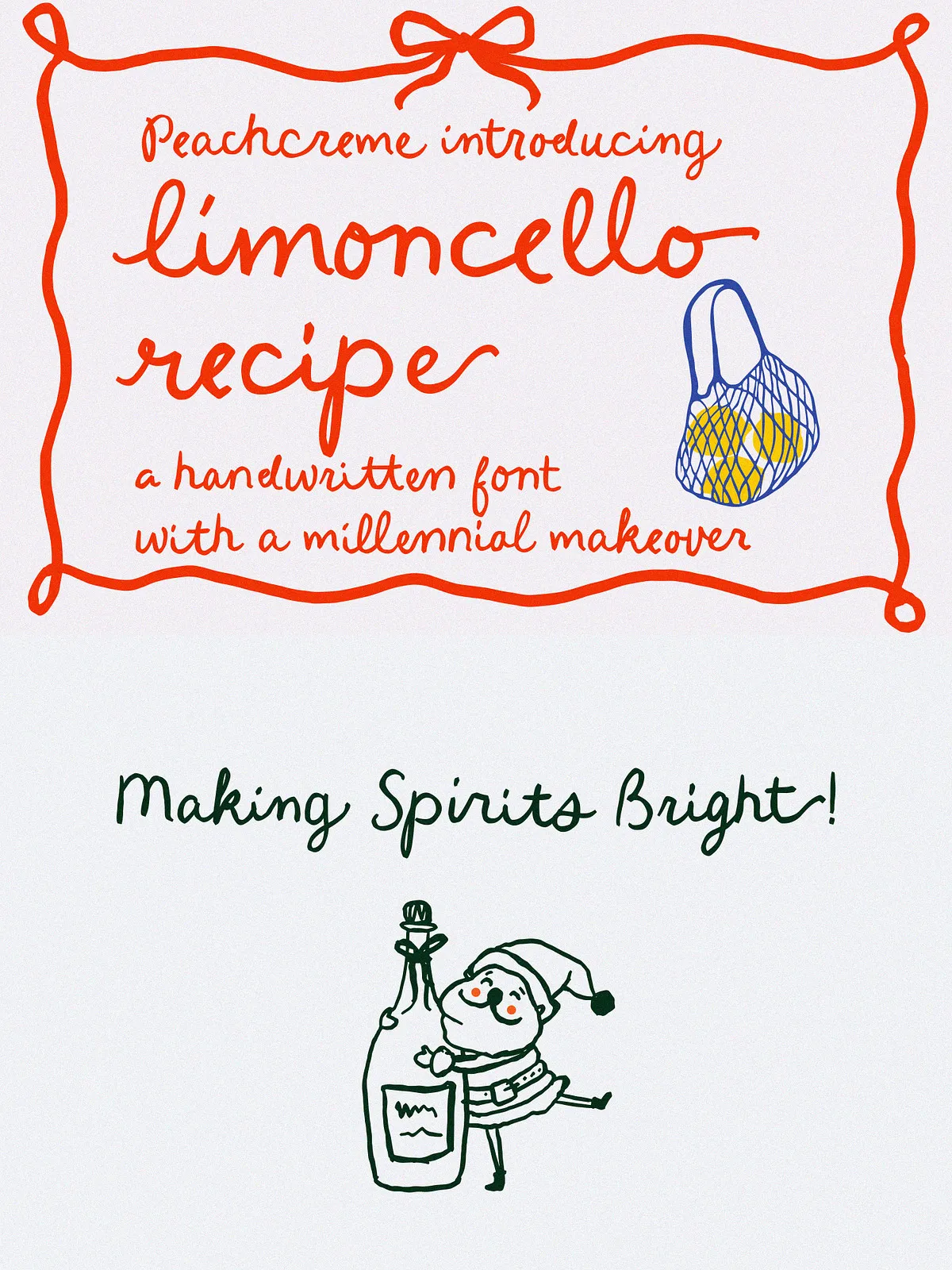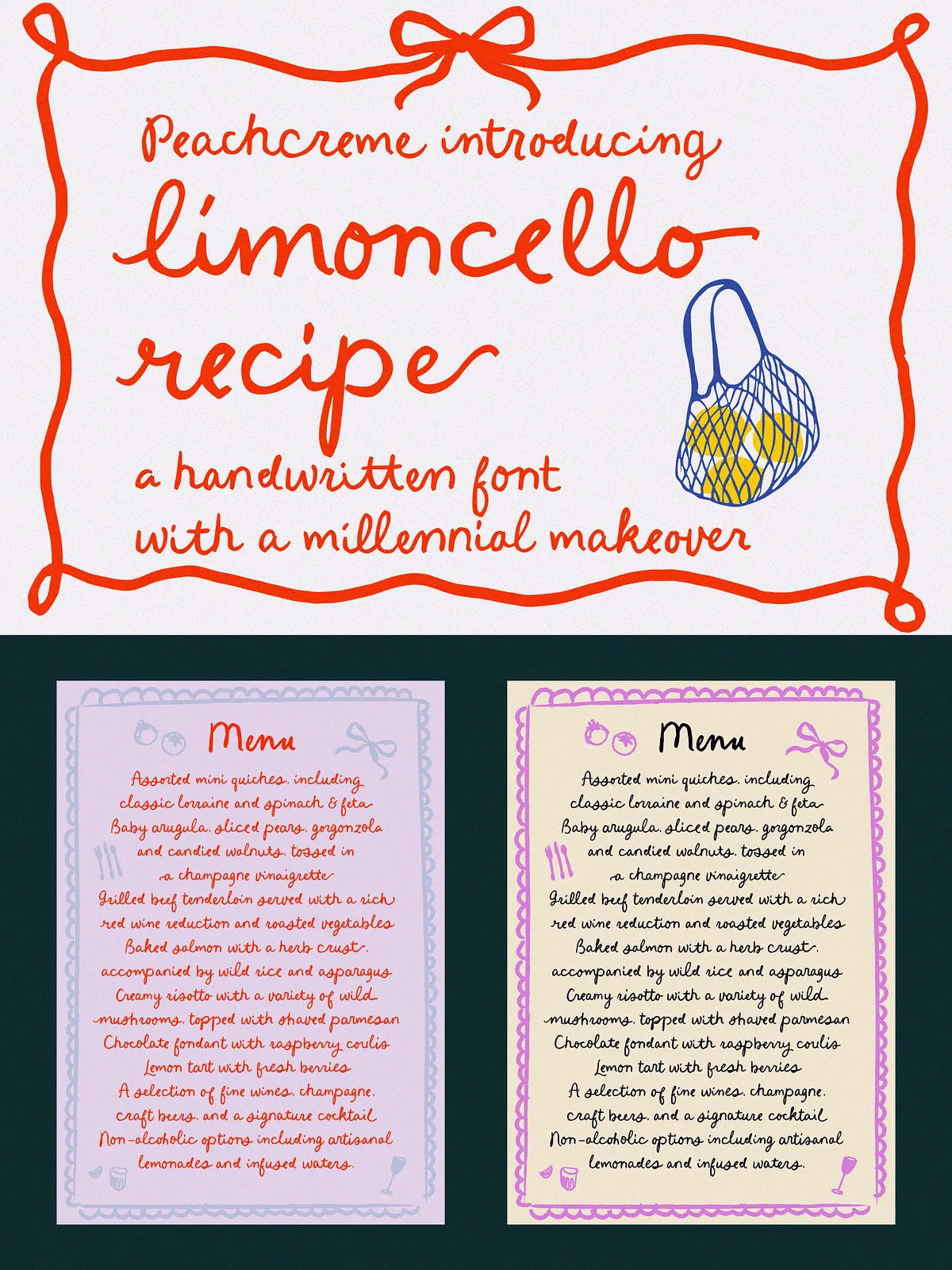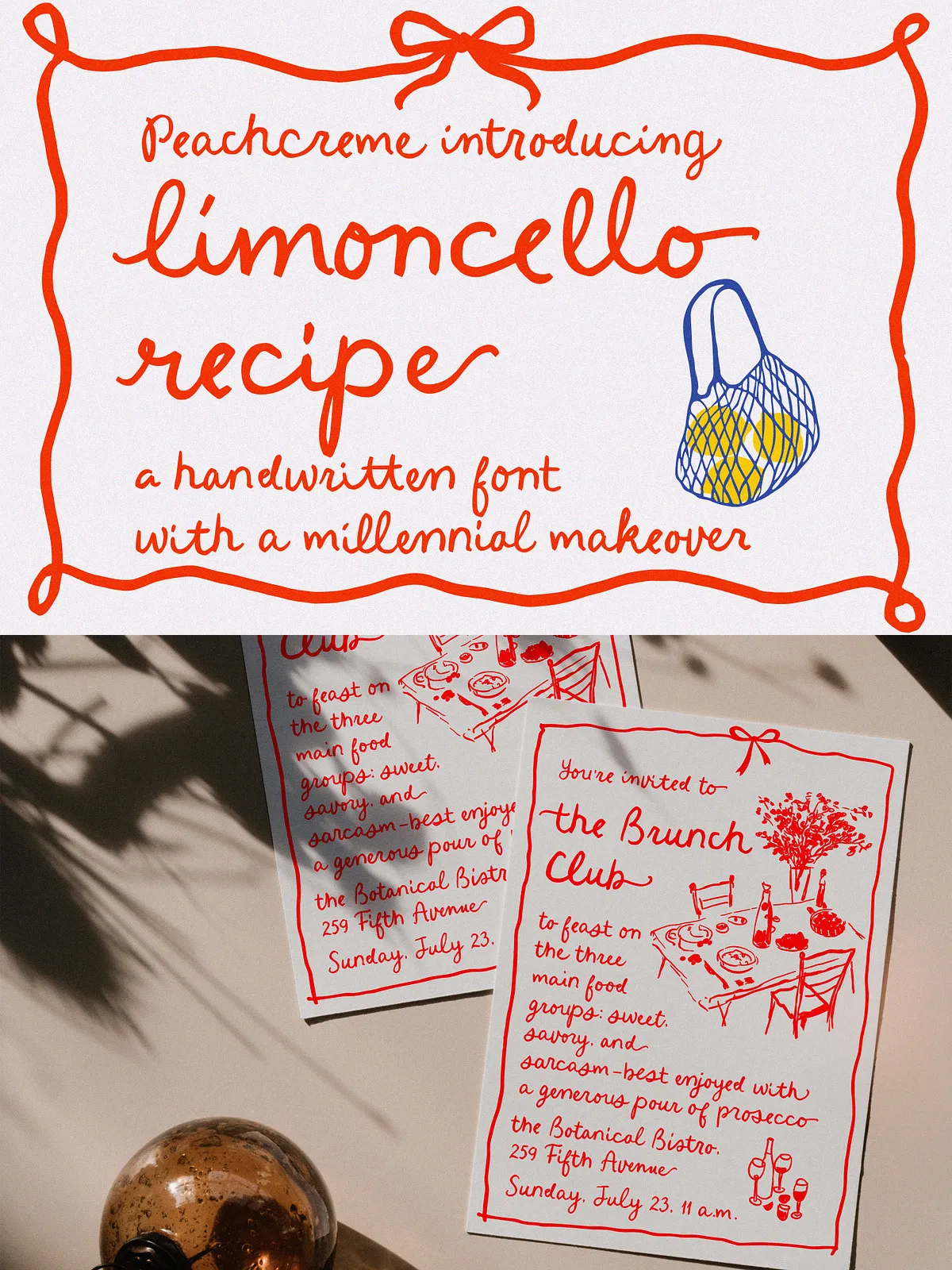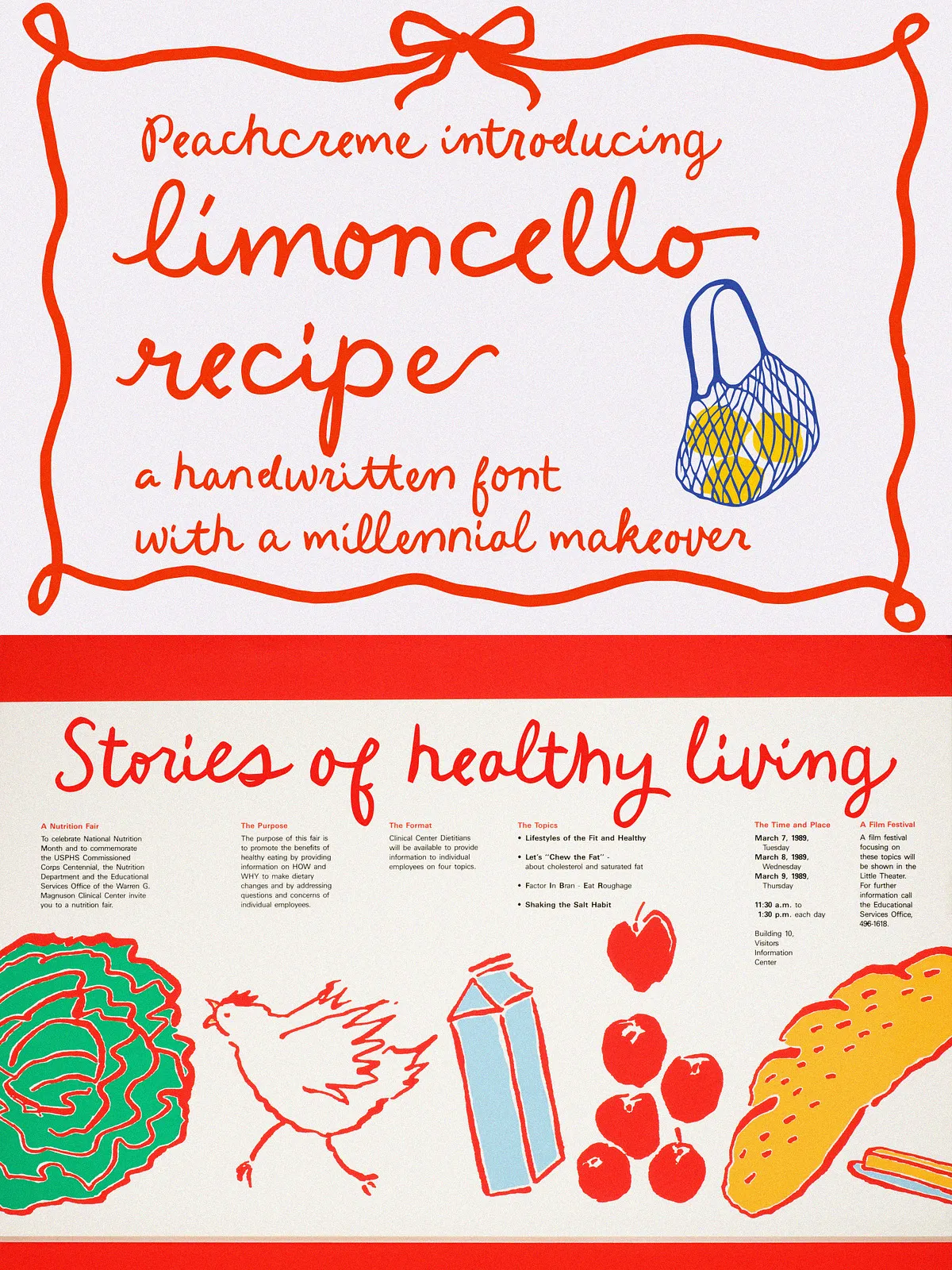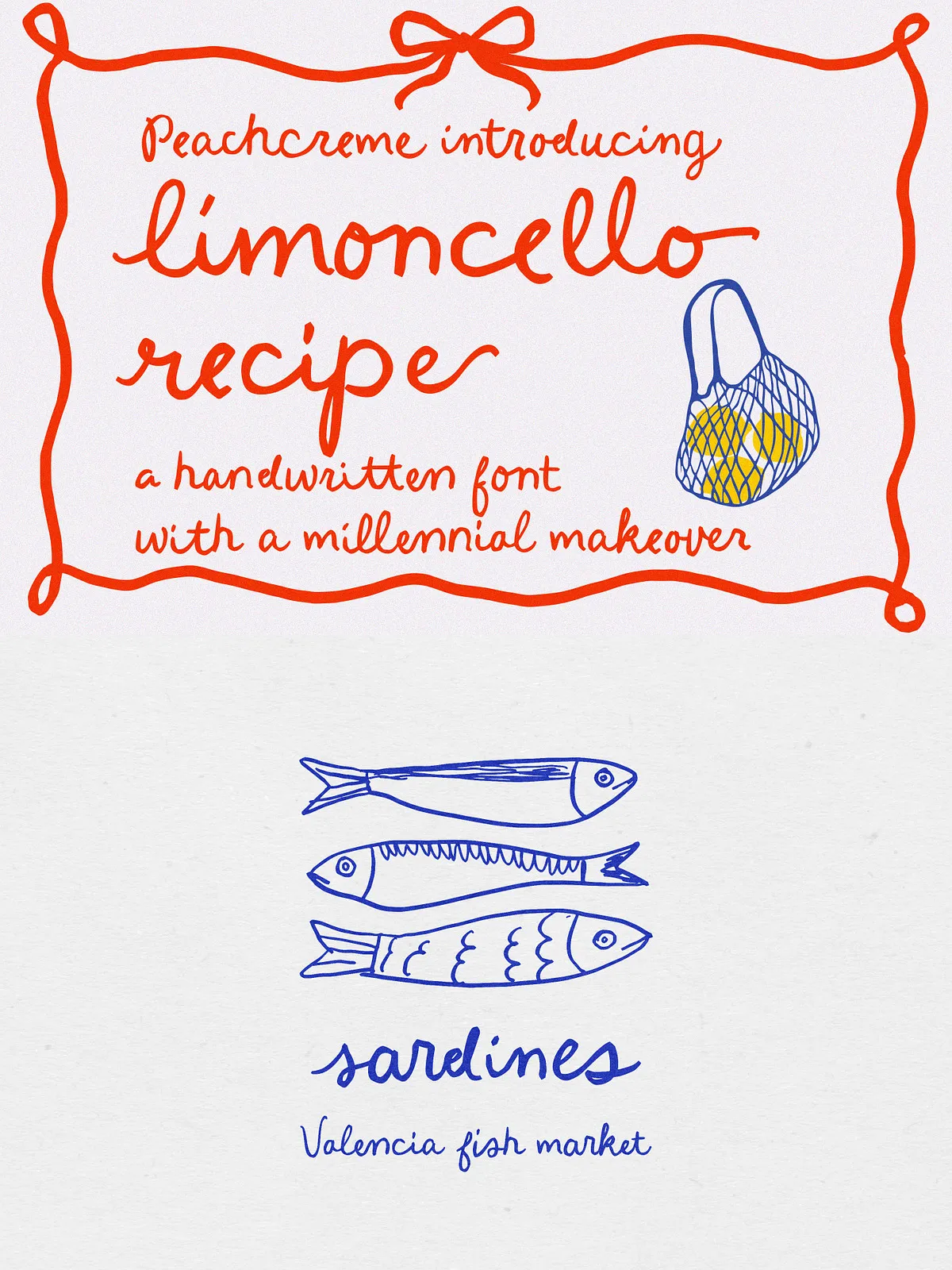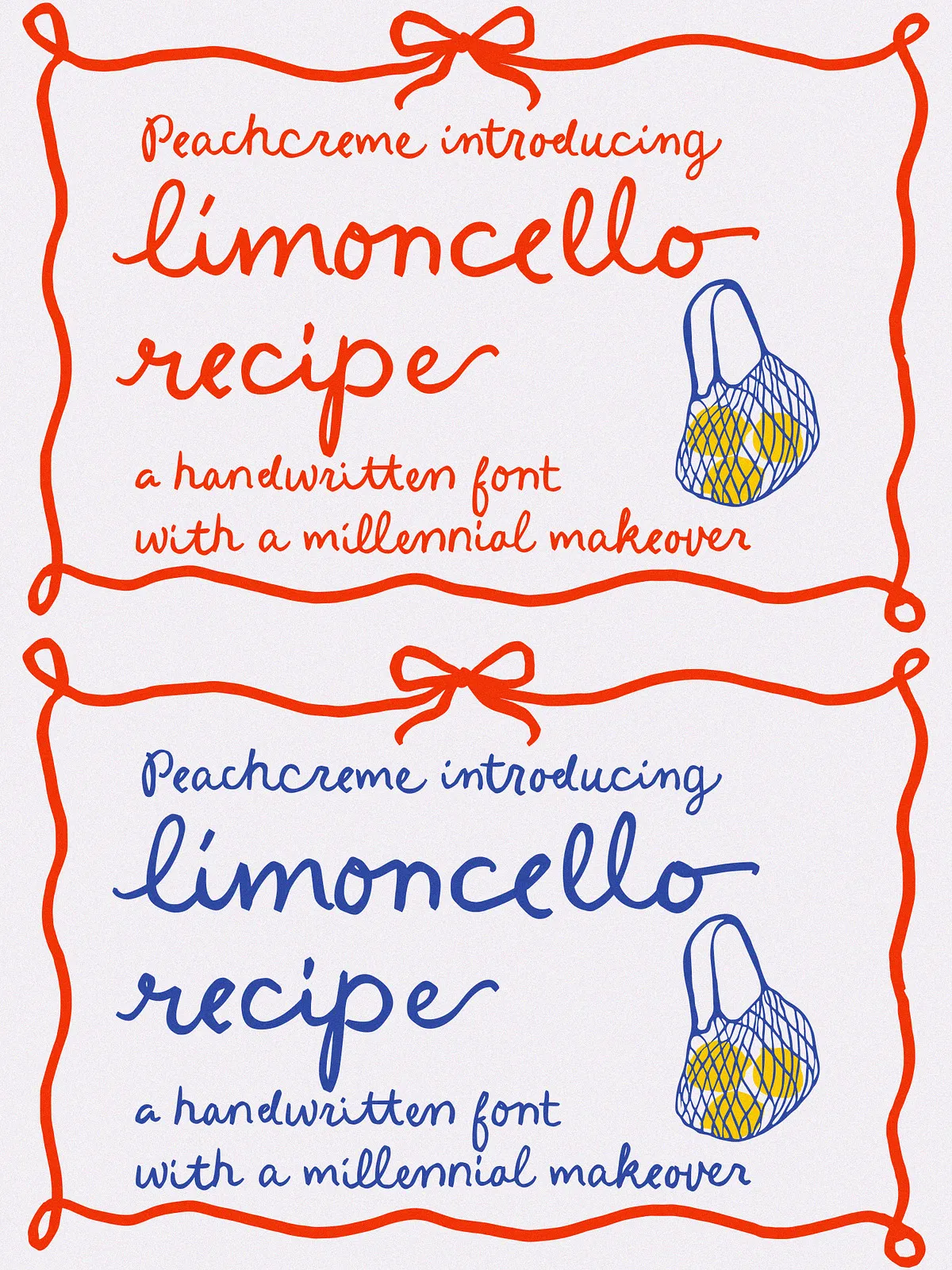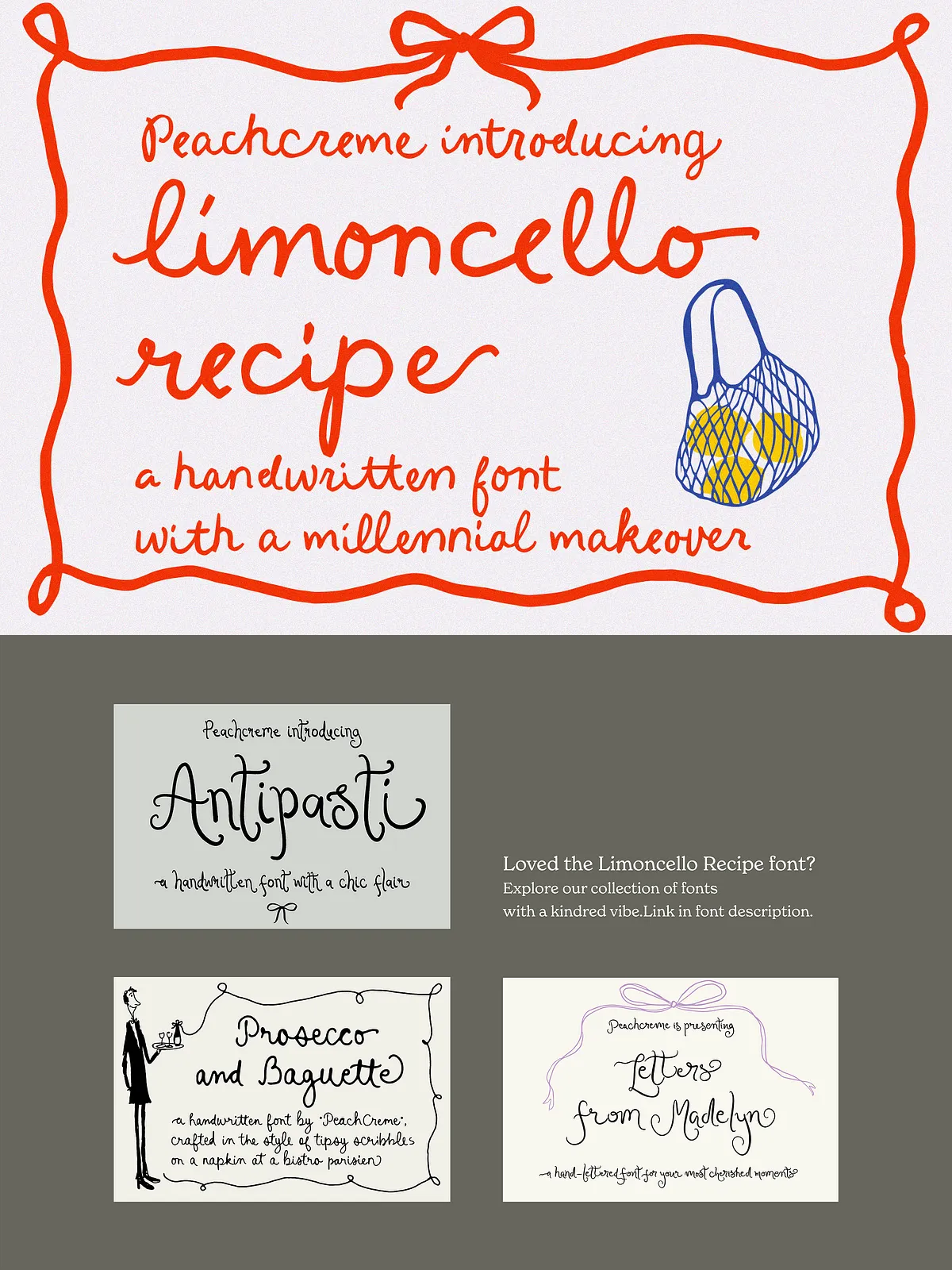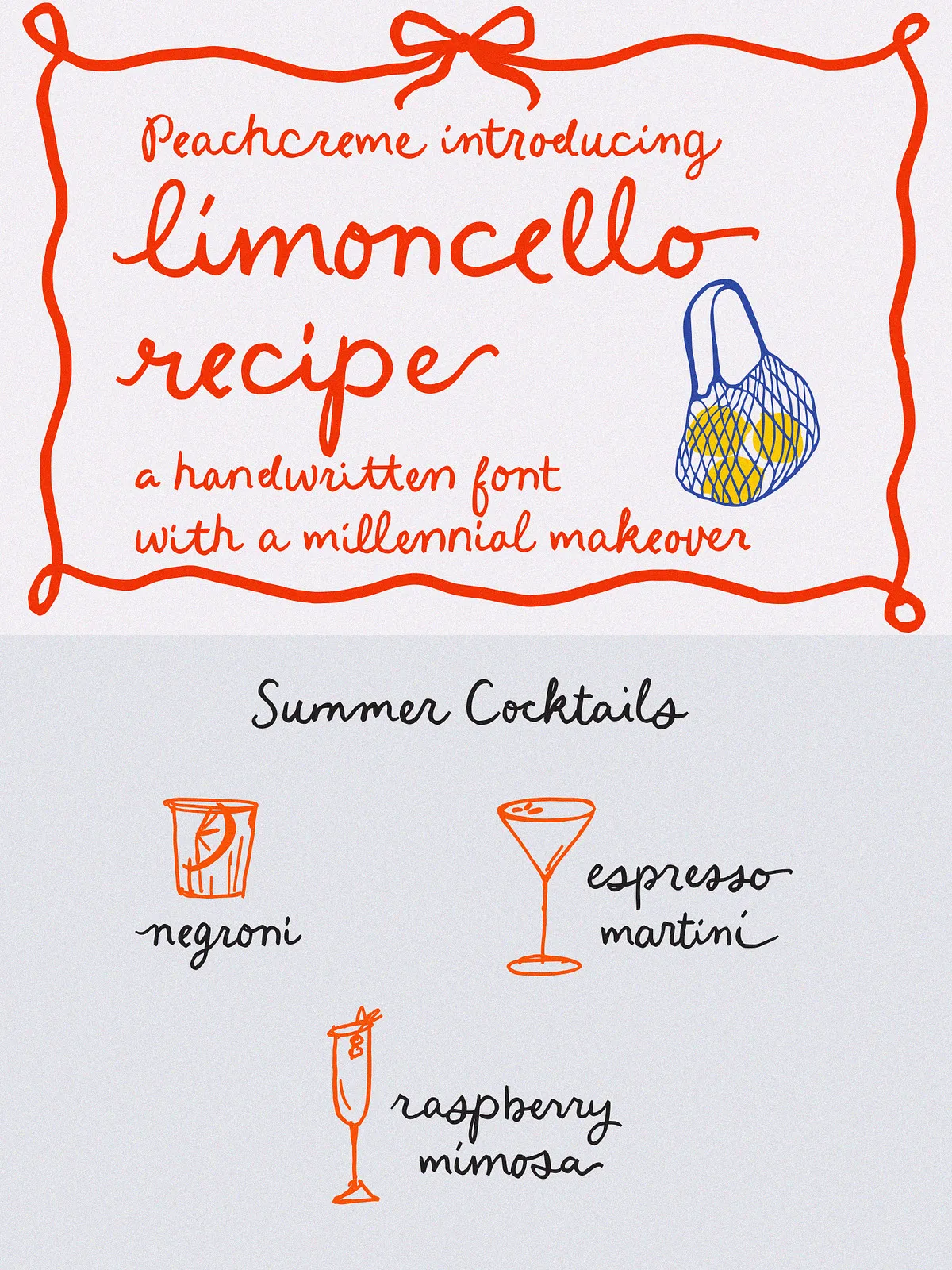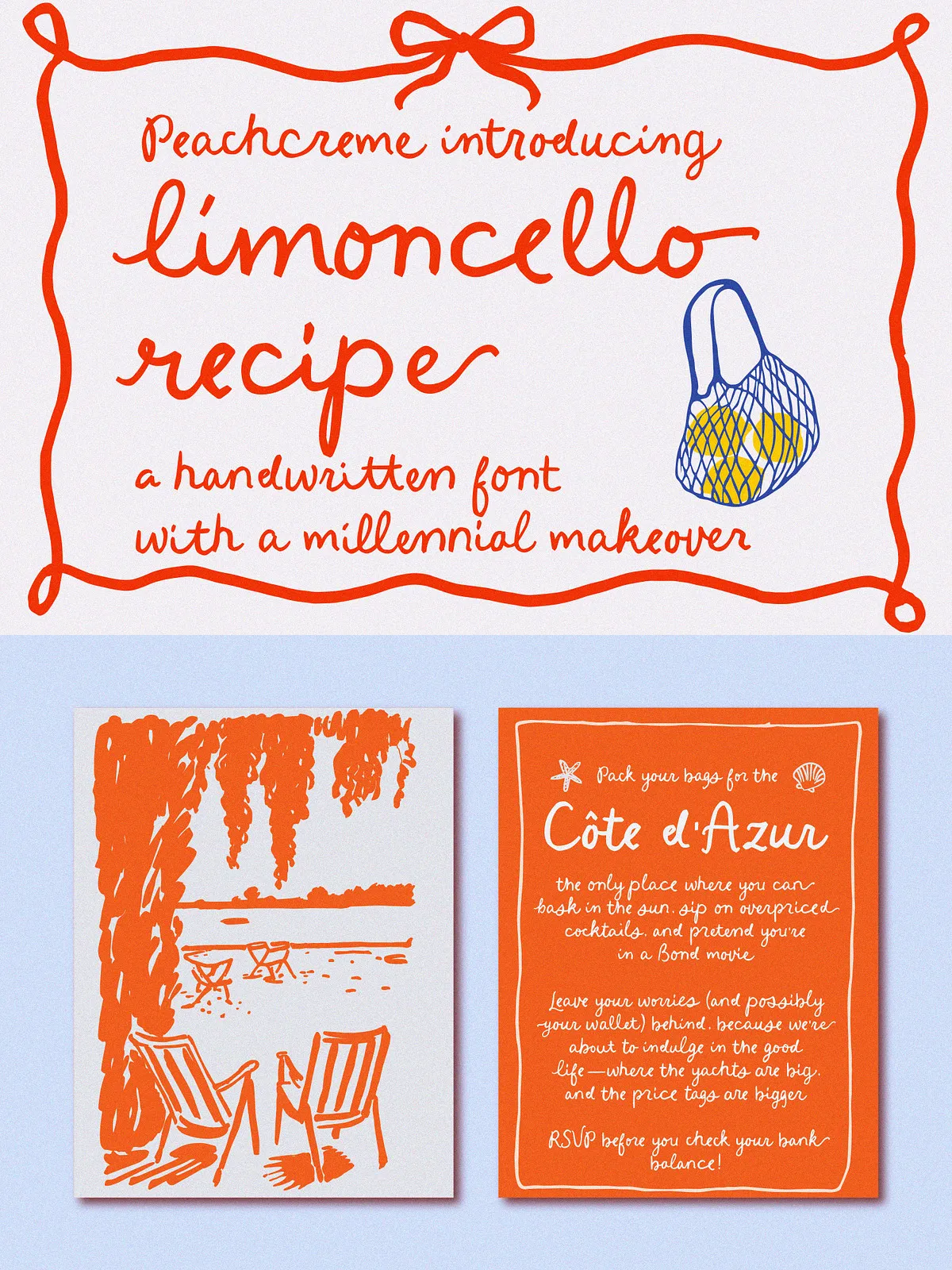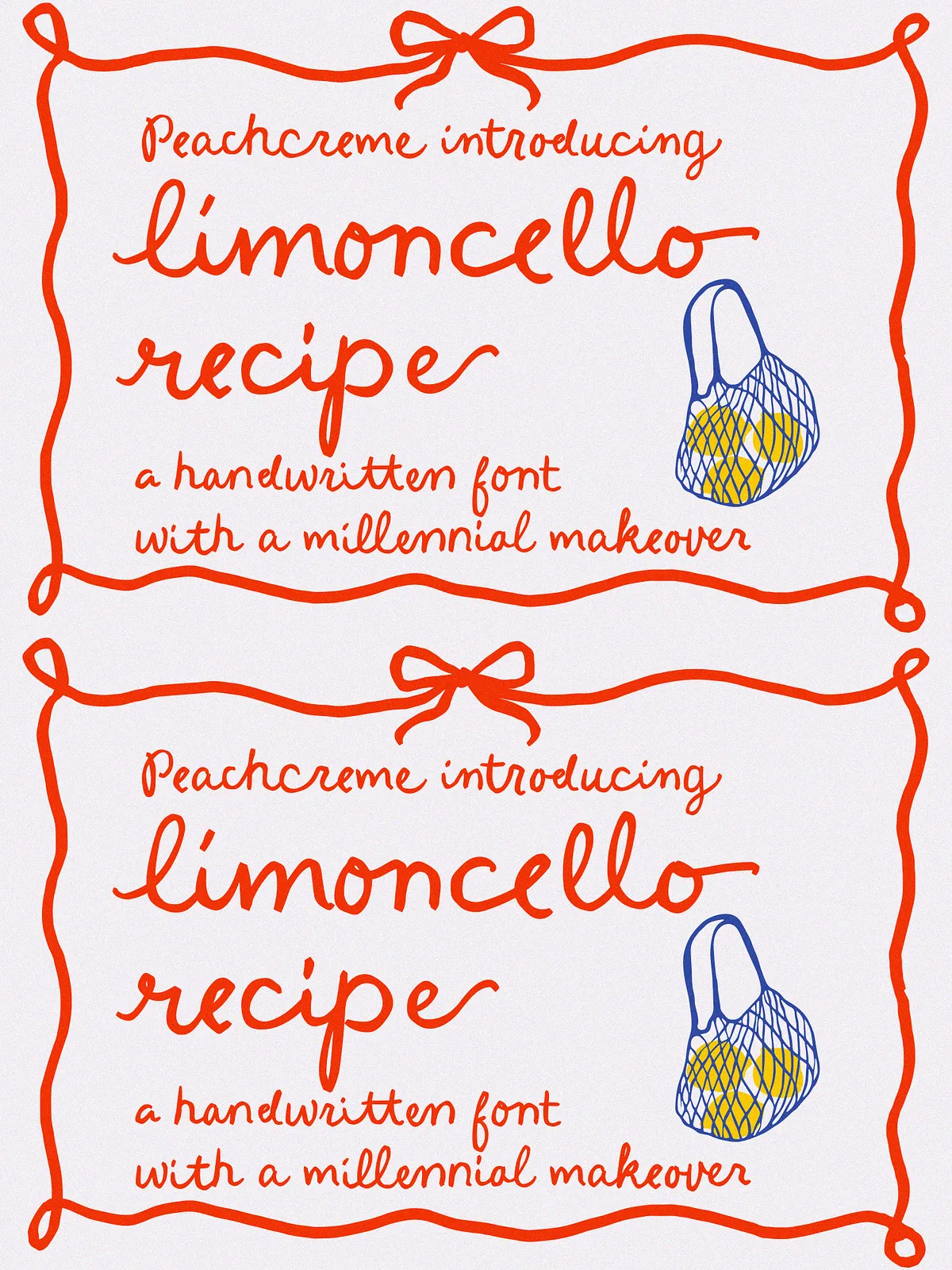
Limoncello Recipe captures the essence of authentic handwriting with its perfectly imperfect strokes and casual, unrefined style. Inspired by the warm, familiar notes found in a well-used family cookbook, this font brings a personal, approachable feel to any design. Its uneven lines and natural flow evoke the human touch, making your text feel genuine and heartfelt.
Authentic Handwriting with Natural Variations
One of the standout features of Limoncello Recipe is its extensive set of 84 standard ligatures. These ligatures mimic the natural connections found in real handwriting, adding a layer of authenticity and uniqueness to your typography. By embracing the beauty of imperfection, the font creates text that resonates with warmth and originality, much like a handwritten letter passed down through generations.
Expressive Swashes for Creative Freedom
Limoncello Recipe includes a variety of beginning and ending swashes that provide expressive flourishes to your text. These alternates offer playful freedom in your designs, allowing you to add a laid-back elegance and whimsical charm. The swashes echo the spontaneous scribbles and joyful doodles often found in the margins of treasured family recipes, enhancing the font’s rustic and personal character.
Versatile Use for Rustic and Whimsical Designs
This font is ideal for projects that require a touch of rustic charm combined with a dash of whimsy. Its unique style makes it perfect for:
- Quirky Brand Identities: Develop distinctive branding that feels approachable and authentic.
- Event Invitations: Create charming invitations that convey warmth and personality.
- Artisanal Product Packaging: Enhance packaging designs with a handcrafted, rustic appeal.
- Personal Projects: Add a heartfelt touch to greeting cards, posters, and social media graphics.
Why Choose Limoncello Recipe?
Choosing Limoncello Recipe means embracing a font that celebrates the imperfect beauty of human handwriting. Its extensive ligatures and expressive swashes provide creative flexibility, allowing you to craft designs that feel personal, warm, and inviting. This font is a perfect choice for anyone looking to add a handcrafted, whimsical touch to their projects while maintaining readability and style.